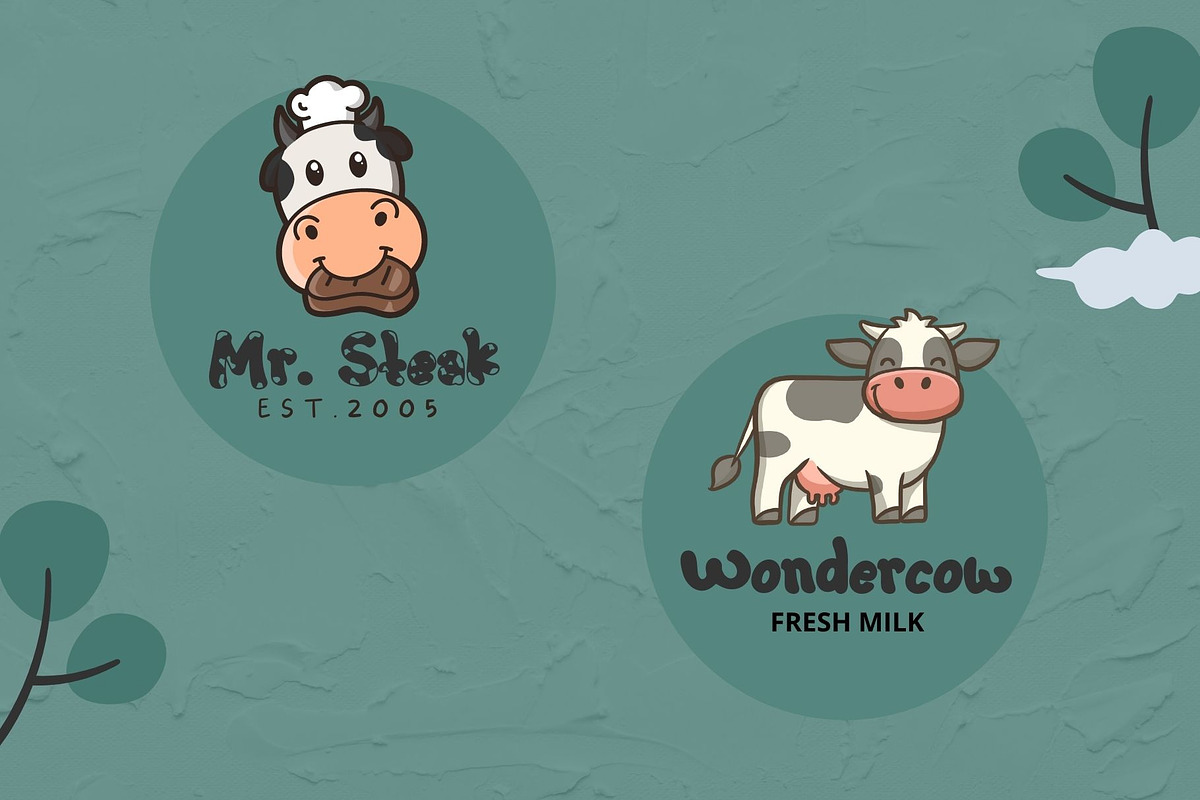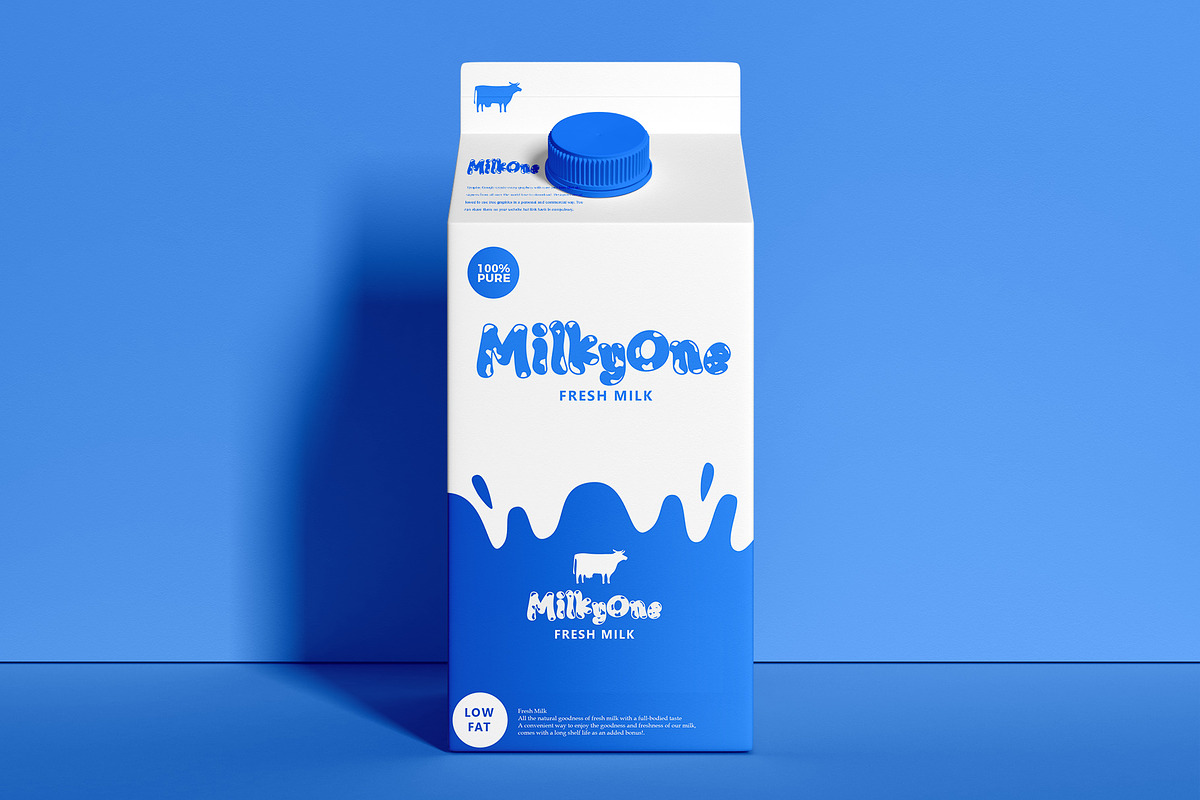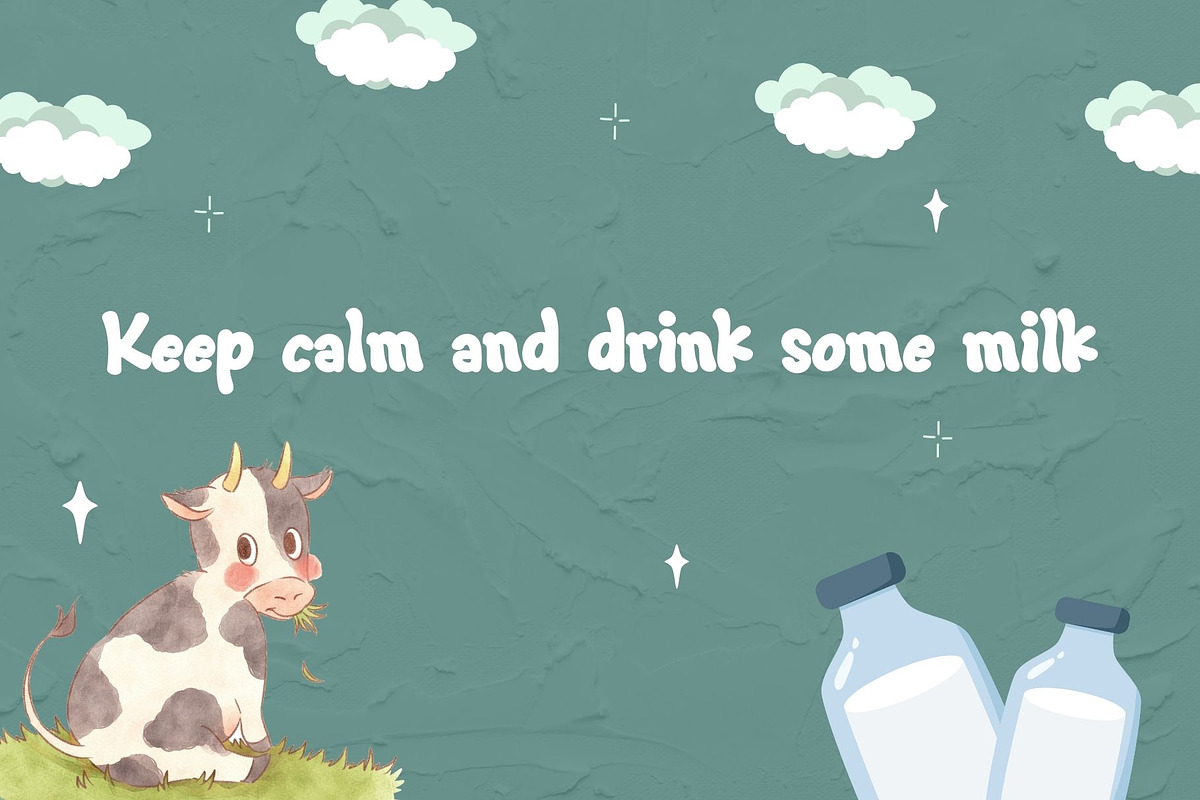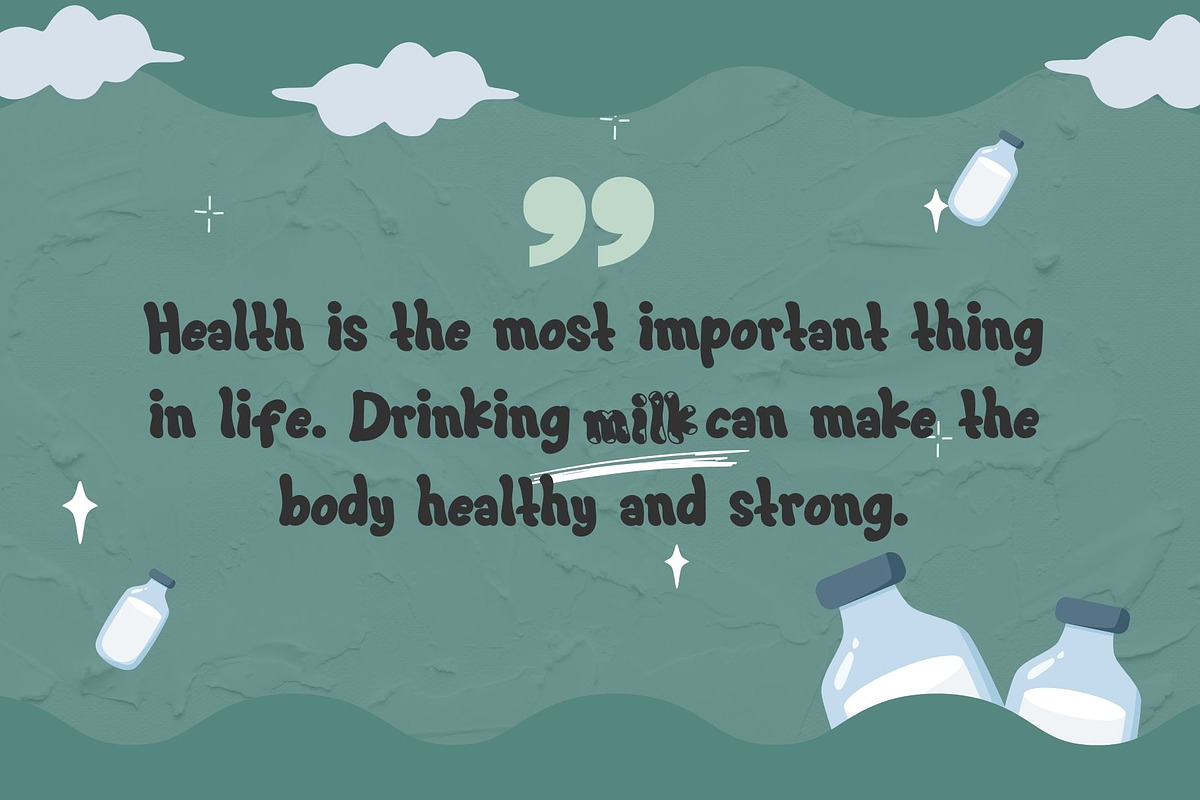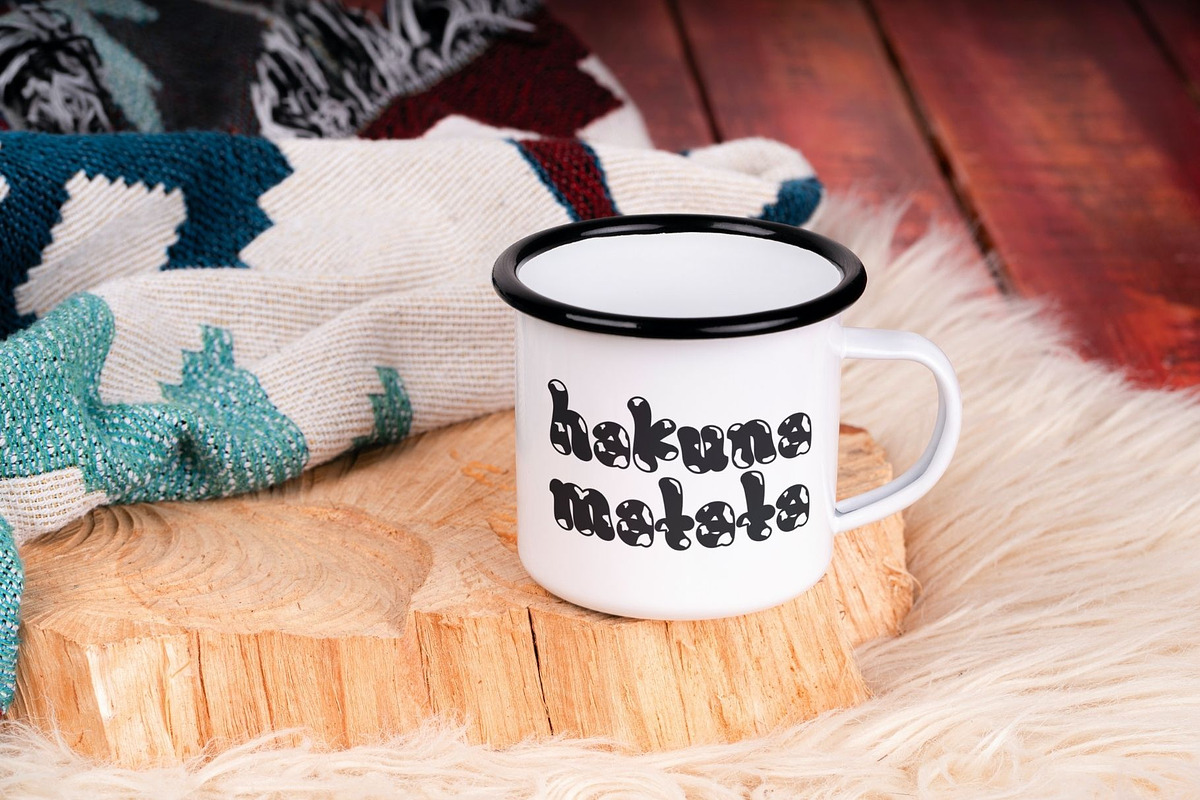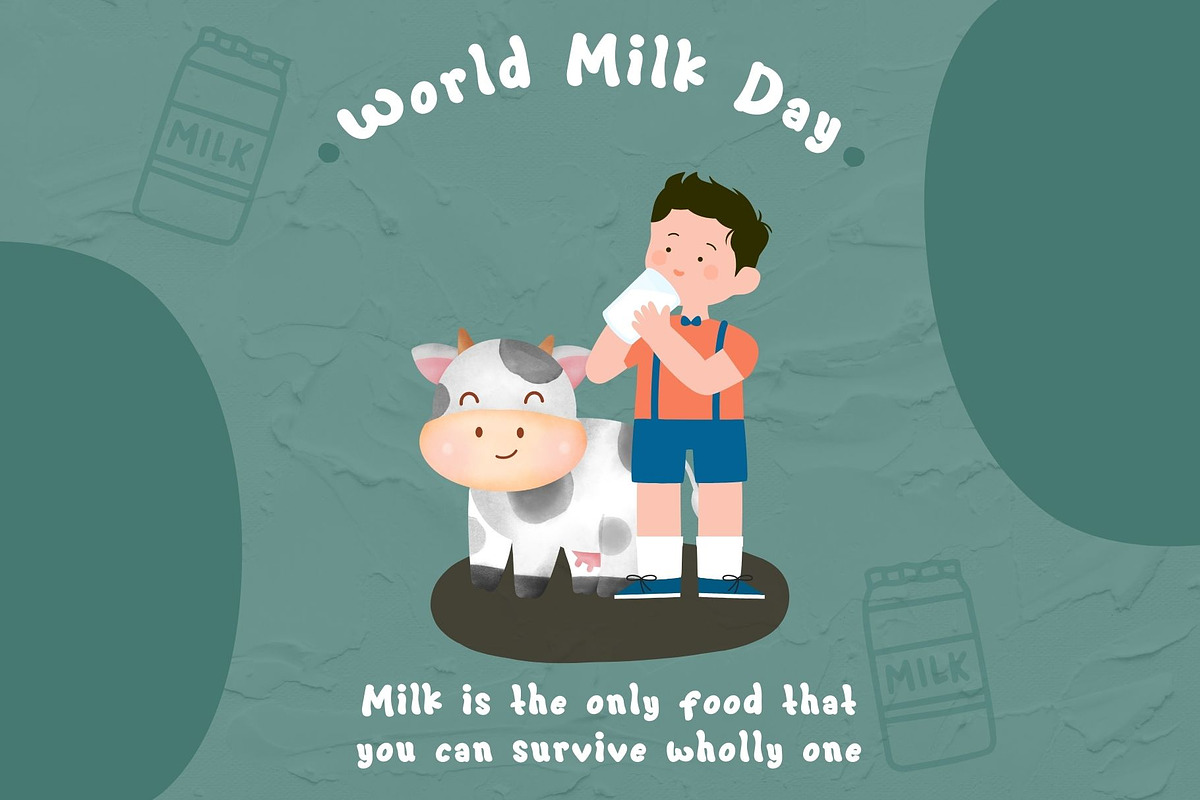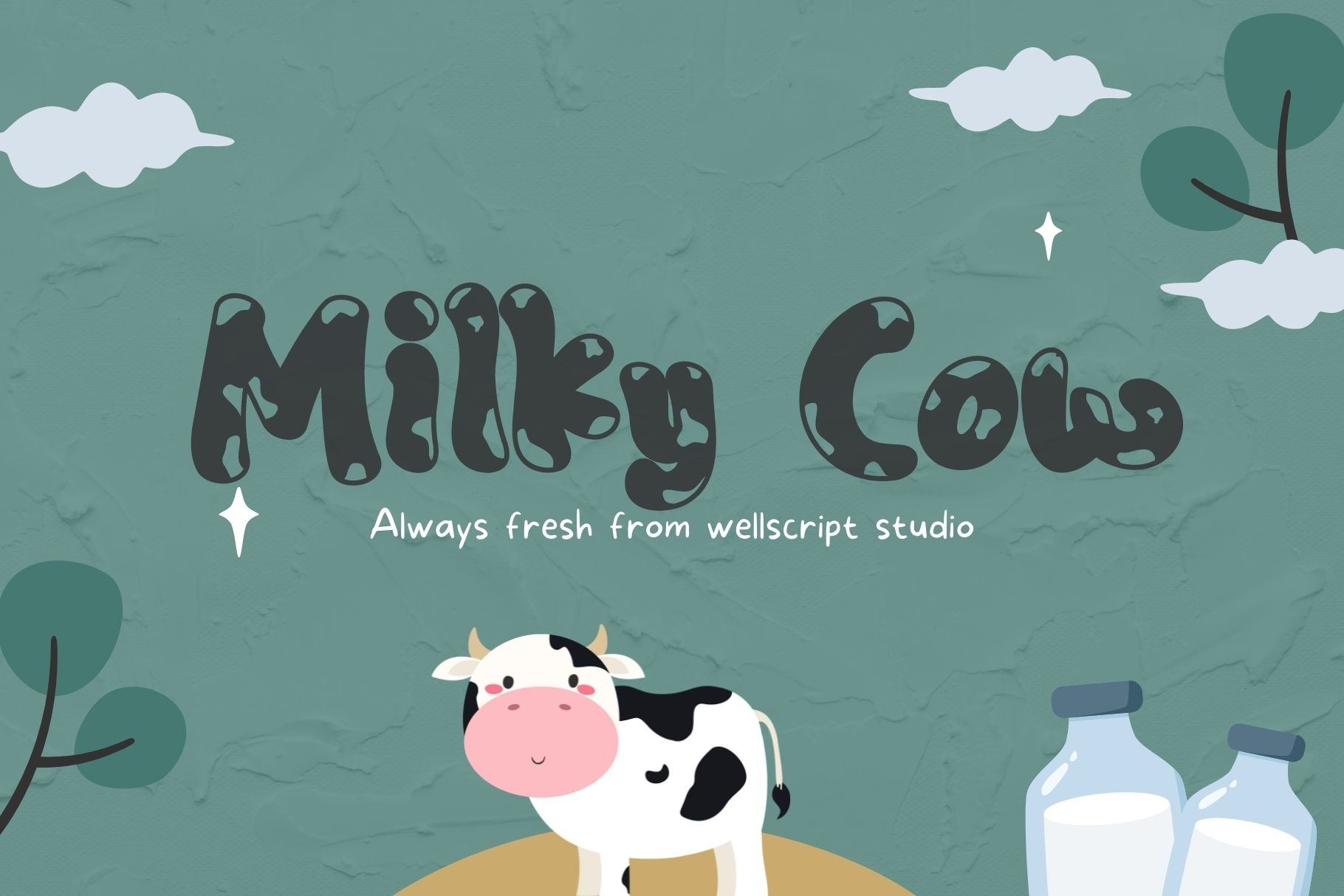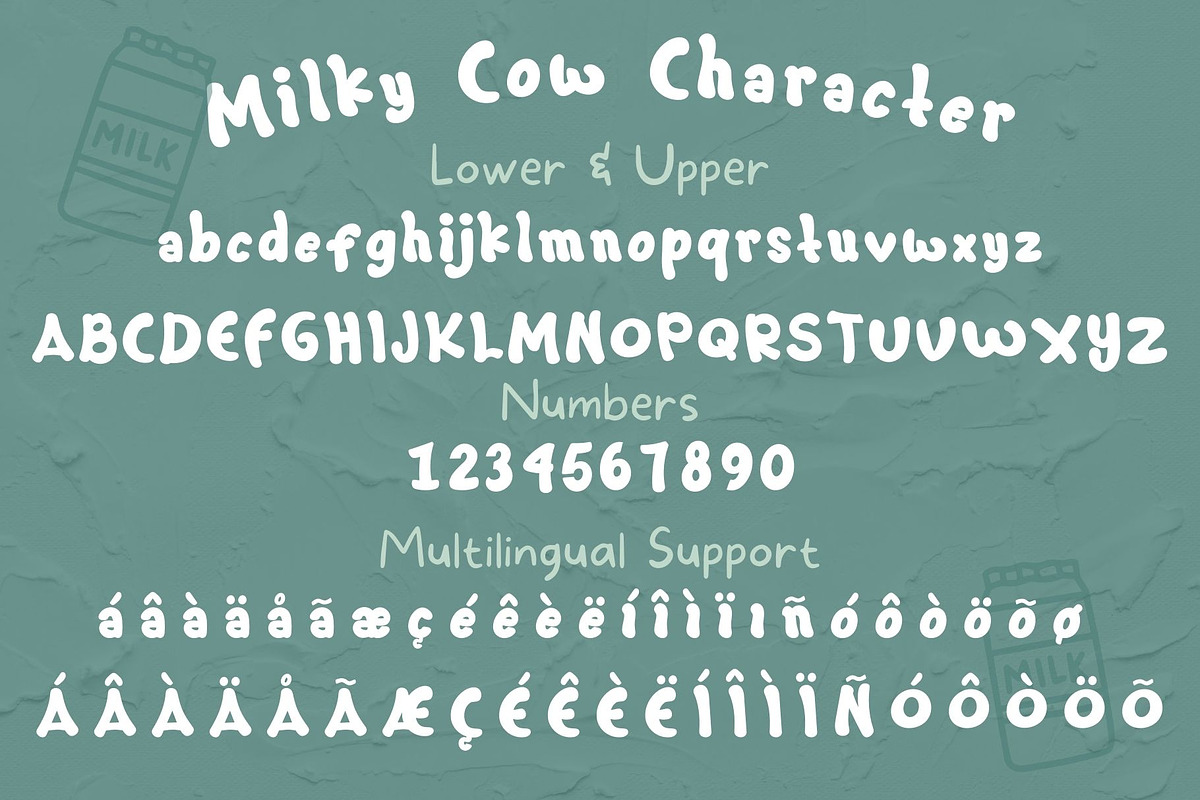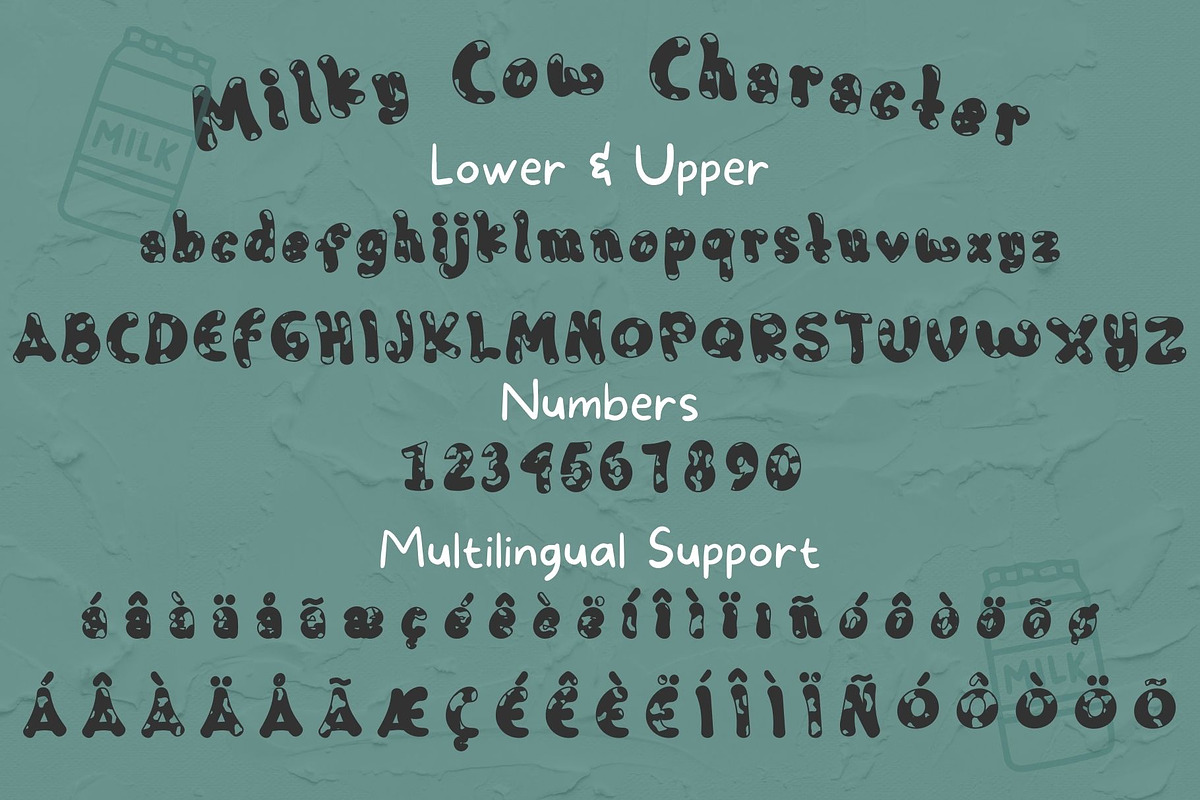
Milky Cow Display Font
Say Hello to Milky Cow! A fun display font with 2 style. this font is incredibly unique and inspired by cow pattern.
Perfect for playful quotes, packaging, branding, invitations, greeting cards and so much more.